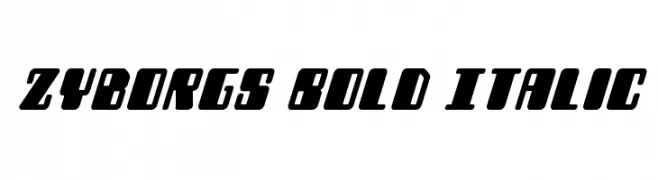
( Iconian Fonts - Daniel Zadorozny - www.iconian.com )
A bold, engraved font with a three-dimensional effect and strong visual impact.
( LJ Design Studios - Luis Jaramillo - www.ljdesignstudios.com )
A dynamic and fluid script font with elegant, flowing lines and cursive letterforms.
( Iconian Fonts - Daniel Zadorozny - www.iconian.com )
A bold, 3D italic font with a futuristic and dynamic style.
( Iconian Fonts - Daniel Zadorozny - www.iconian.com )
A bold, geometric font with a futuristic and tech-inspired design.
( Iconian Fonts - Daniel Zadorozny - www.iconian.com )
A bold, italicized font with a futuristic and dynamic style.
( Iconian Fonts - Daniel Zadorozny - www.iconian.com )
A bold, futuristic font with a chrome-like, three-dimensional appearance.
( Iconian Fonts - Daniel Zadorozny - www.iconian.com )
A bold, italicized font with a futuristic chrome-like design.
( Iconian Fonts - Daniel Zadorozny - www.iconian.com )
A bold, condensed, and italicized font with a futuristic and dynamic style.
( Iconian Fonts - Daniel Zadorozny - www.iconian.com )
A bold, futuristic font with an engraved, three-dimensional effect.
( Iconian Fonts - Daniel Zadorozny - www.iconian.com )
A bold, futuristic engraved italic font with a three-dimensional effect.